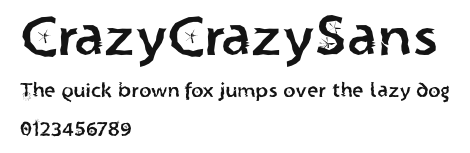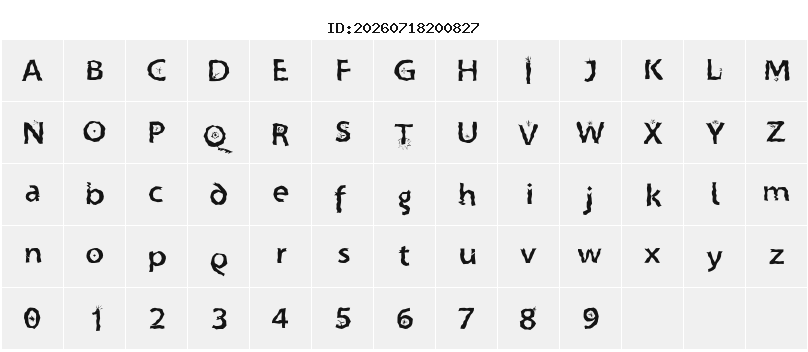
• Font Name: CrazyCrazySans
• Full Font Name: CrazyCrazySans
About CrazyCrazySans.ttf
CrazyCrazySans.ttf is a modern, elegant sans-serif font designed for ultimate readability and visual harmony. Perfect for branding, headlines, web design, and print materials.